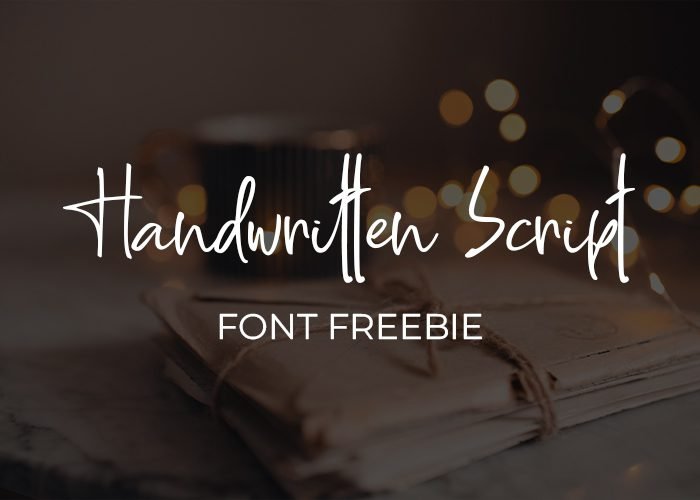
Handwritten Script Font – Freebie
Handwritten Script Font Freebie
This font is crafted with care and attention to detail, resulting in an elegant, easy-to-read script font.
Whether designing a logo, creating social media graphics, or putting together a wedding invitation, our Handwritten Script Font Freebie will add a touch of sophistication to your work.
What makes our Handwritten Script Font Freebie so unique is its authenticity. Each character was hand-drawn and carefully digitized to preserve the natural flow and imperfections of handwriting. It means your designs will have a personal touch that is impossible to replicate with a generic font.